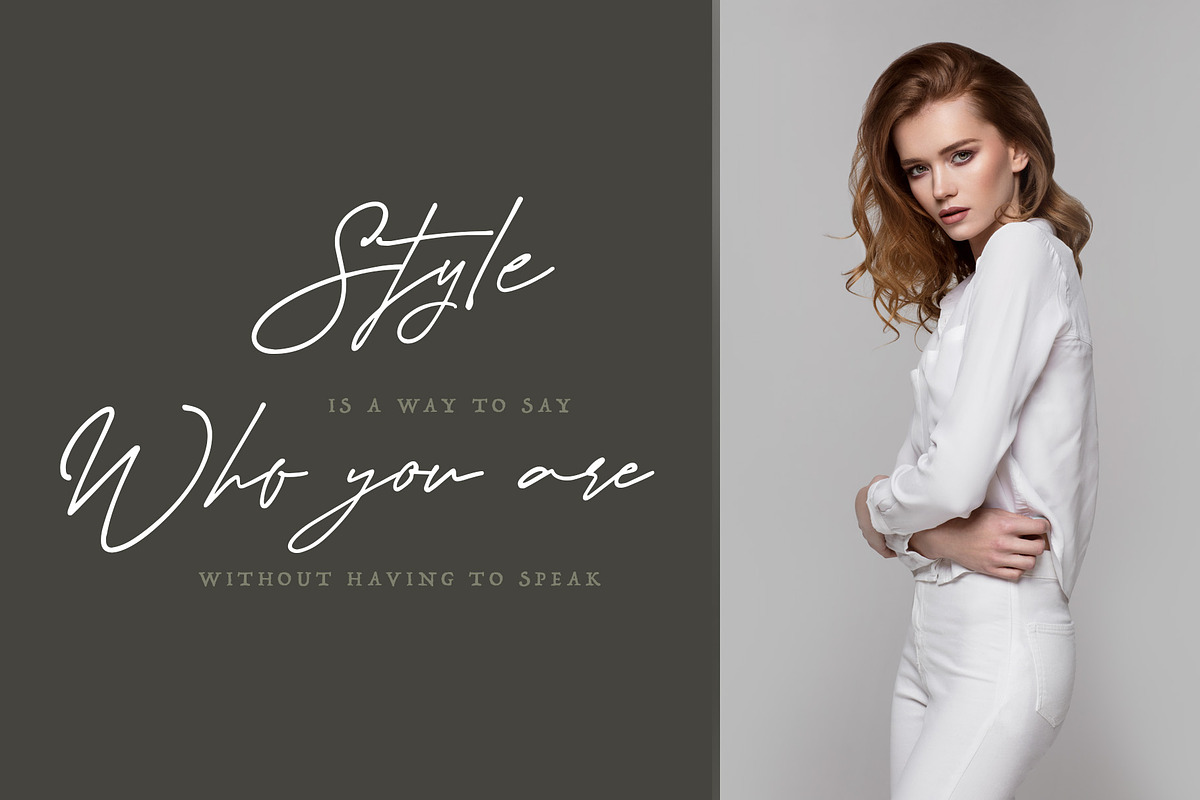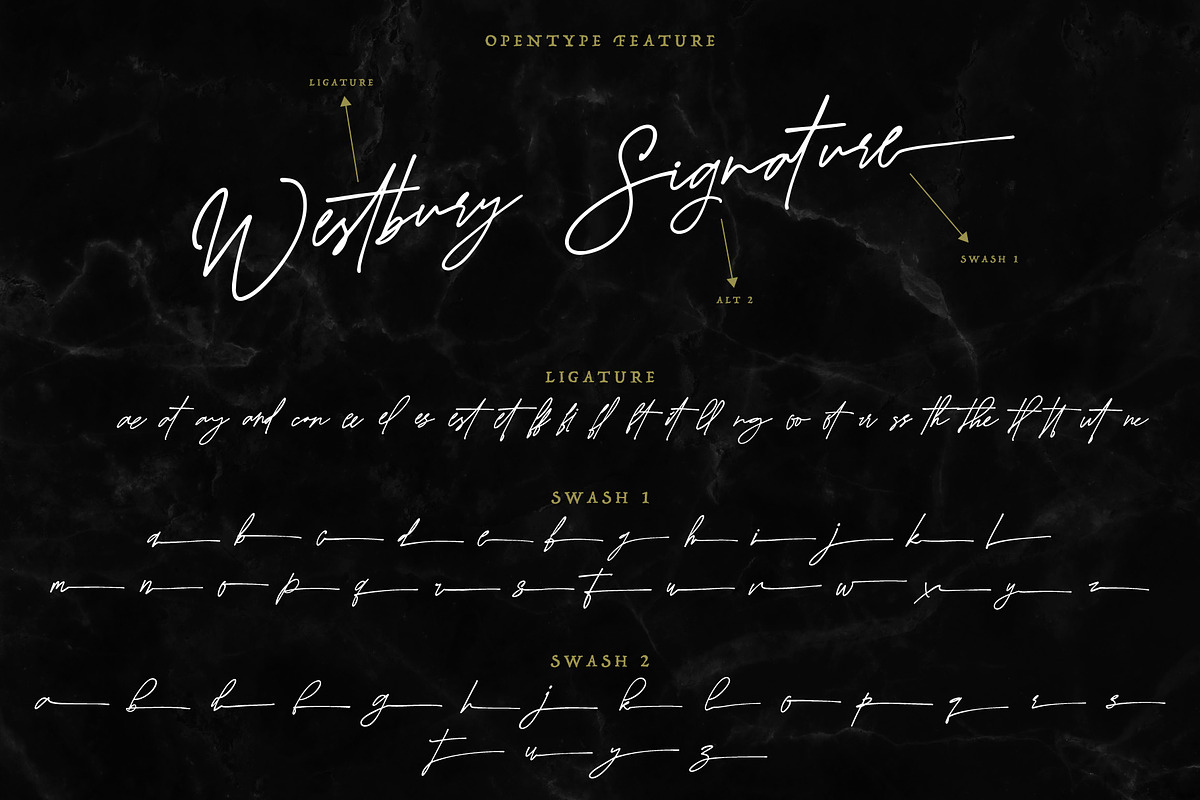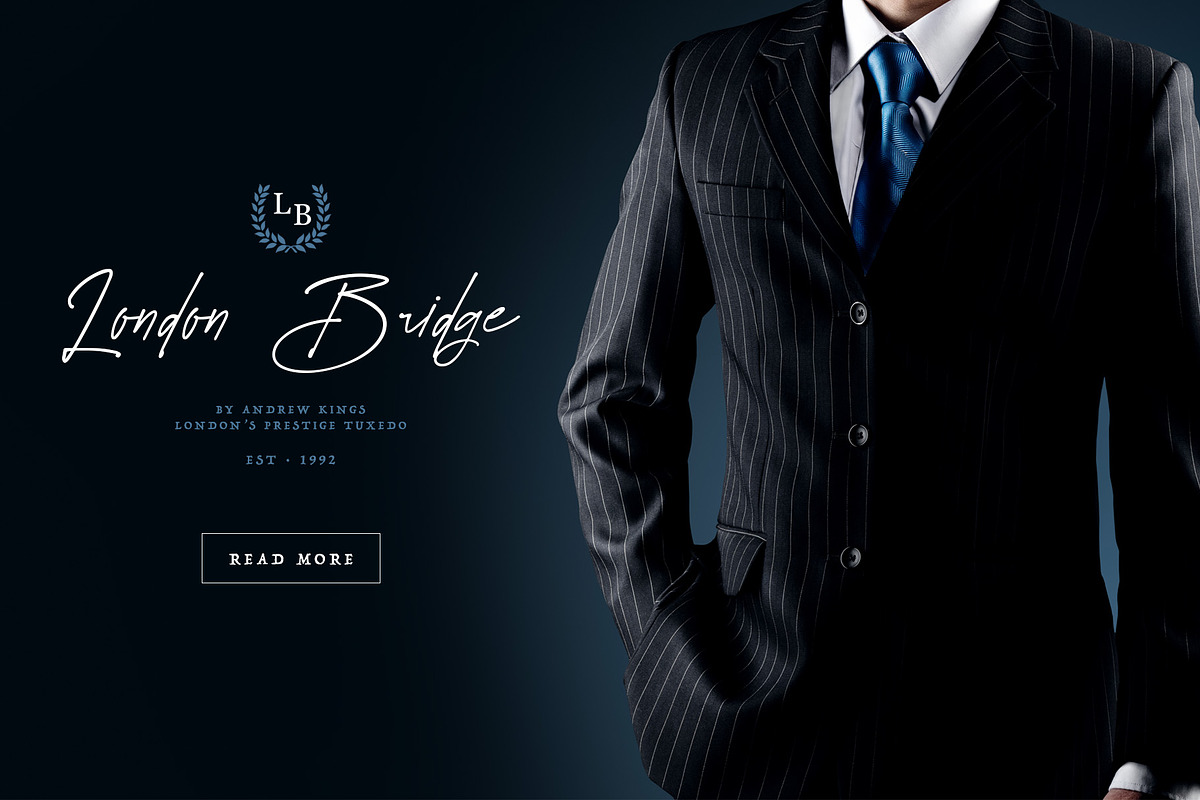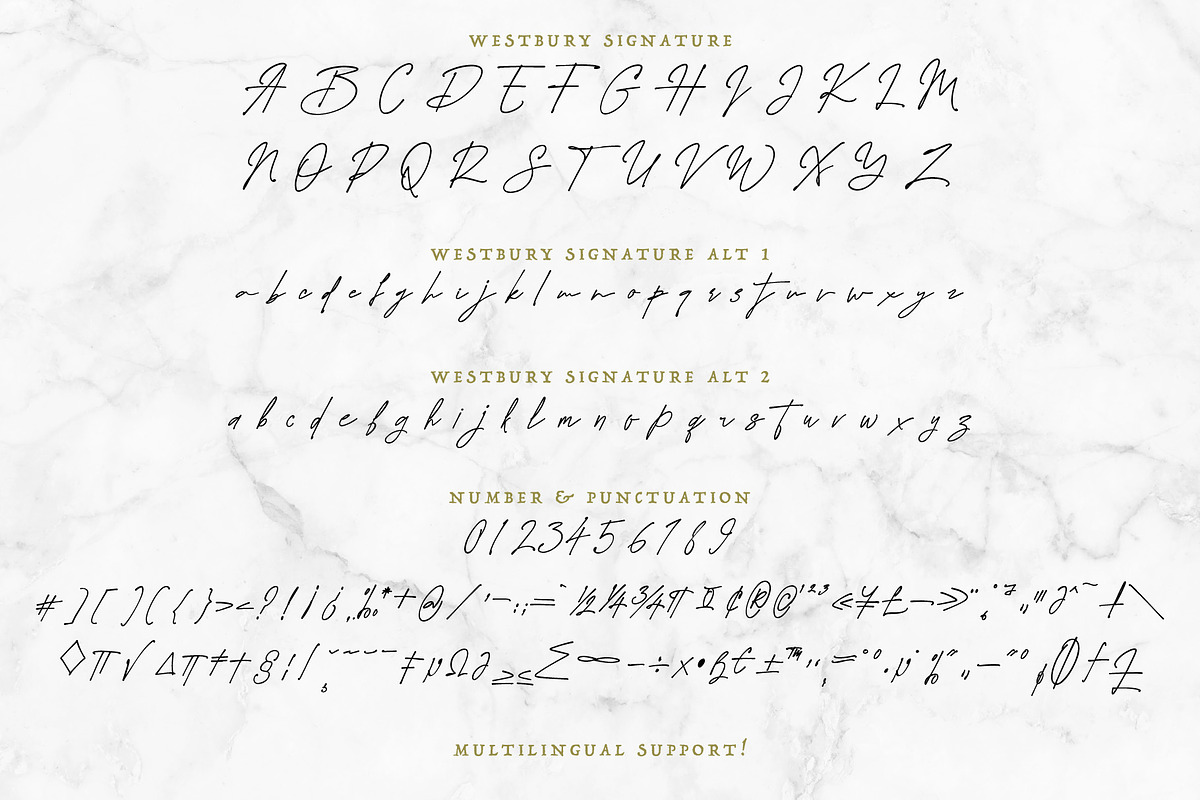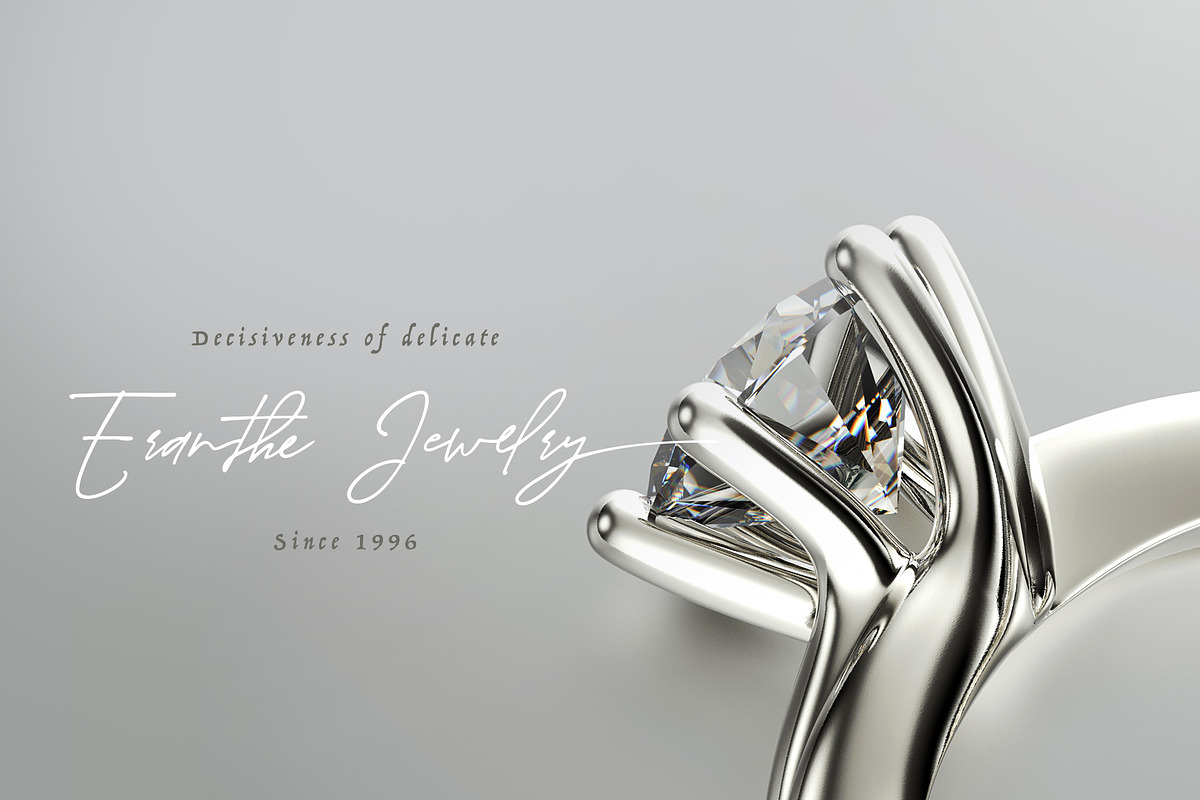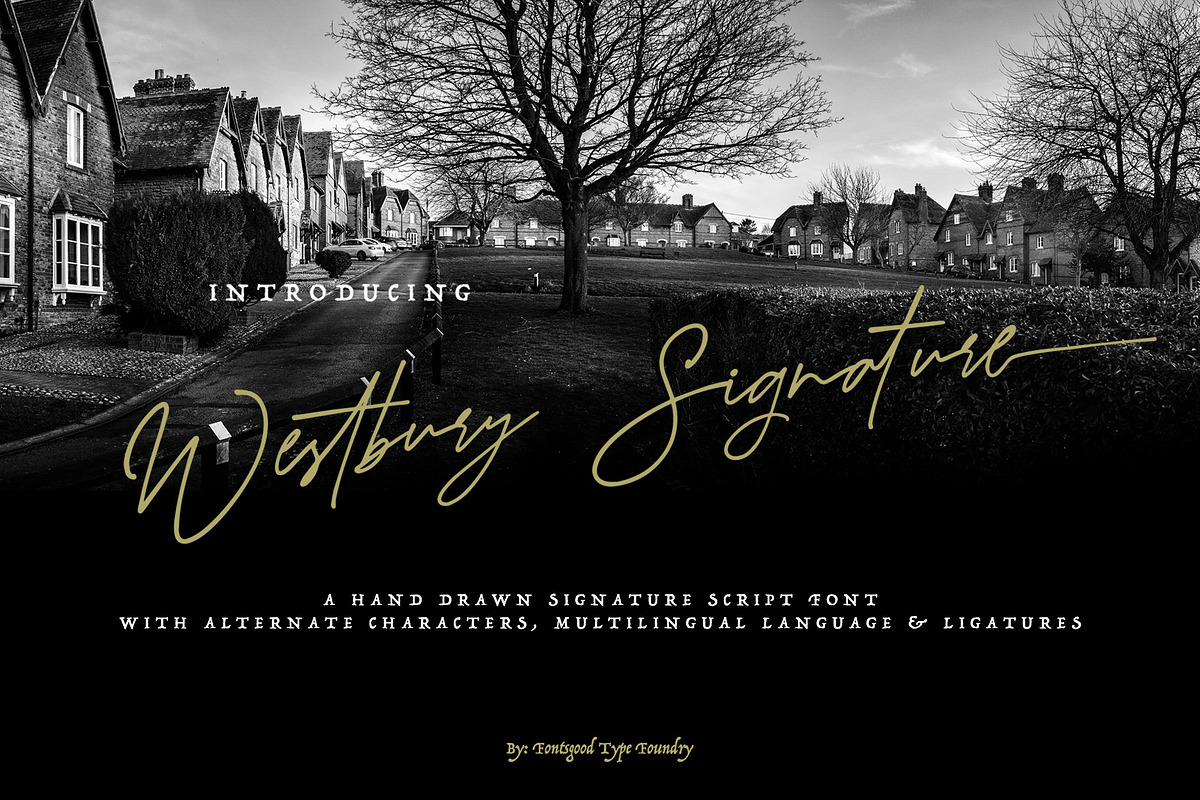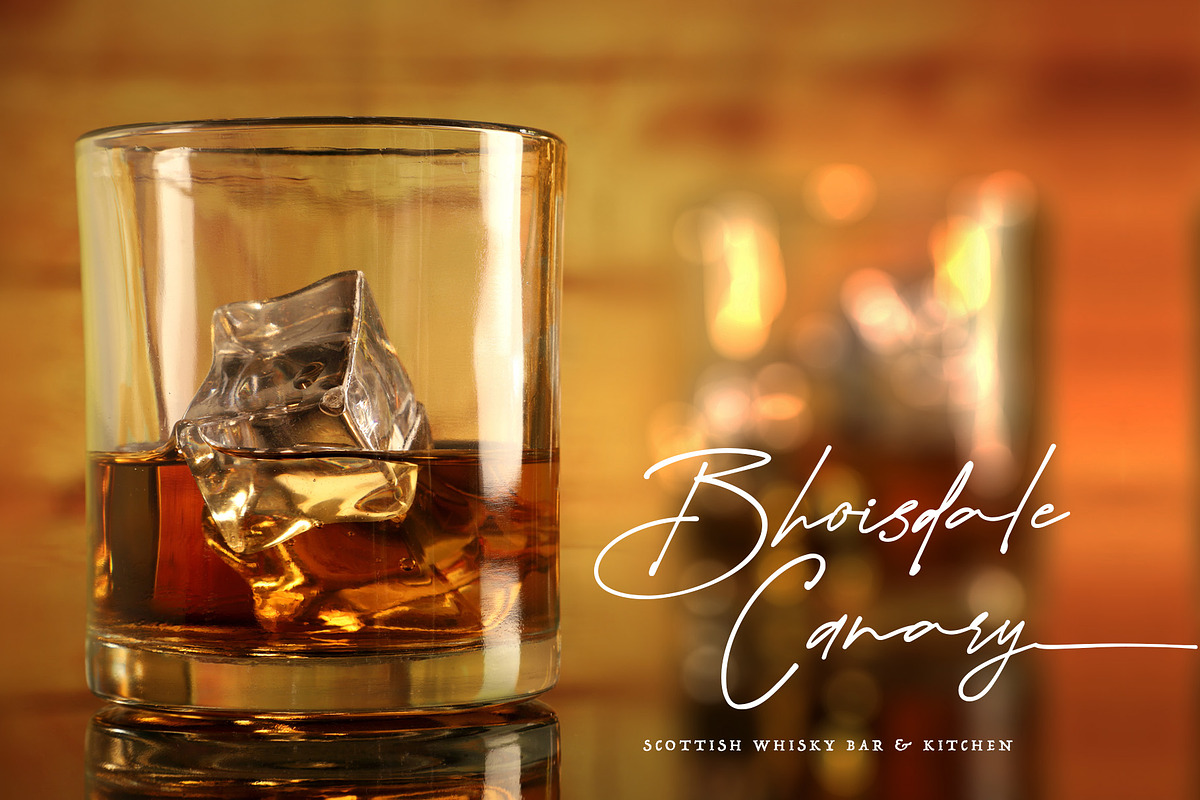
Westbury Signature
Introducing the hand drawn signature script font "Westbury Signature". For those of you who are needing a touch of elegant, hand made signature and modernity for your designs, this font was made just for you!
Westbury Signature was built with Uppercase, lowercase, OpenType features ( 2 style of ending swashes and alternate lowercase characters), numbers, punctuation, ligatures and it also supports other languages.